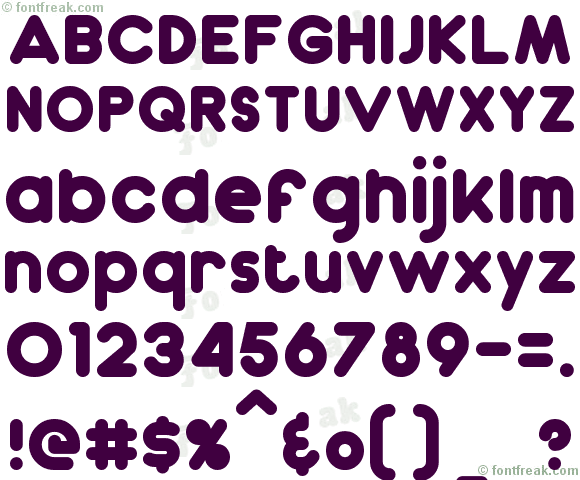
Dunkin
About Dunkin
The Dunkin font, crafted by Neale Davidson in 2012, is a striking display typeface that effortlessly blends modern aesthetics with playful charm. This sans-serif font features a bold and rounded design, characterized by its thick stroke weight and minimal contrast. The even spacing between characters enhances readability while maintaining a lively appearance, making it suitable for a variety of creative applications.
Dunkin’s unique visual style is perfect for use cases such as restaurant menus, where its friendly and approachable nature can make any dish more appealing. It also shines in branding projects, particularly for cafés and food trucks aiming to convey a fun and inviting atmosphere. Additionally, this font works well for promotional materials, including flyers and posters, where grabbing attention is essential. Content creators may find it ideal for social media graphics, as its contemporary look stands out in digital feeds.
The Dunkin font appeals to a diverse audience, including graphic designers seeking to add a whimsical touch to their projects, small business owners looking to establish a memorable brand identity, and content creators who want to inject personality into their visuals. Because it is available as a freeware license, it provides an accessible option for those who may be working within budget constraints.
What truly sets the Dunkin font apart is its versatility combined with a sense of fun. Its rounded edges and bold presence allow it to adapt seamlessly to both casual and professional contexts. Whether you're designing a lively coffee shop menu or creating engaging digital content, the Dunkin font free download is an excellent choice that will elevate your design projects and capture your audience's attention.